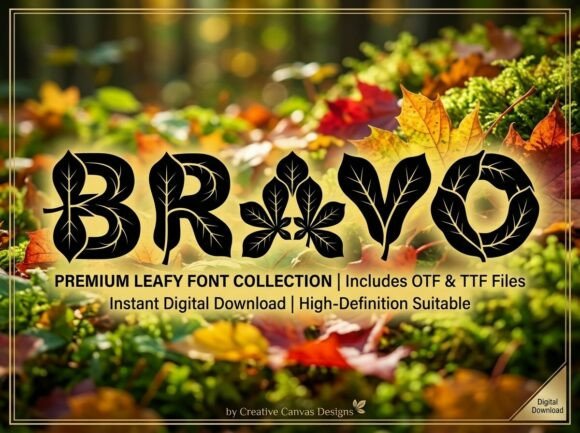
The Ultimate Display Font: Unleashing the Power of Bravo Font
I’ll never forget the design project that led me to discover the incredible Bravo Font. I was working on a luxury packaging design for a high-end fashion brand, and I needed a font that would make a statement. After hours of searching, I stumbled upon Bravo Font, and it was love at first sight. Its unique artistic flourishes and commanding visual personality instantly captured my attention. In this article, I’ll share my experience with Bravo Font, its features, and how to make the most of it in your designs.
What Makes Bravo Font Special?
Bravo Font is an avant-garde decorative display font designed to be the focal point of any composition. Its strong, artistic soul and high-end, polished finish make it perfect for luxury packaging, experimental editorial layouts, and high-impact headlines. Here are some of its key features:
• ✨ All-caps (uppercase only) display typeface, focusing on intricate craftsmanship of every individual letter
• ✨ Unique and artistic flourishes that add a touch of elegance to any design
• ✅ High-end, polished finish that screams luxury
• ✅ Perfect for making a statement with high-impact headlines and titles
• ⚠️ Limited to all-caps letters, which may not be suitable for body text or longer paragraphs
• 🤔 May require some experimentation to get the perfect look, especially when pairing with other fonts
The Designer Inspiration Behind Bravo Font
The story behind Bravo Font begins with a designer who wanted to create a font that would make a statement. Inspired by the world of luxury and art, they crafted a typeface that would exude elegance and sophistication. With its unique flourishes and commanding visual personality, Bravo Font was born.
Q: Is Bravo Font suitable for body text?
A: No, Bravo Font is designed for display purposes only and is best used for headlines, titles, and short paragraphs.